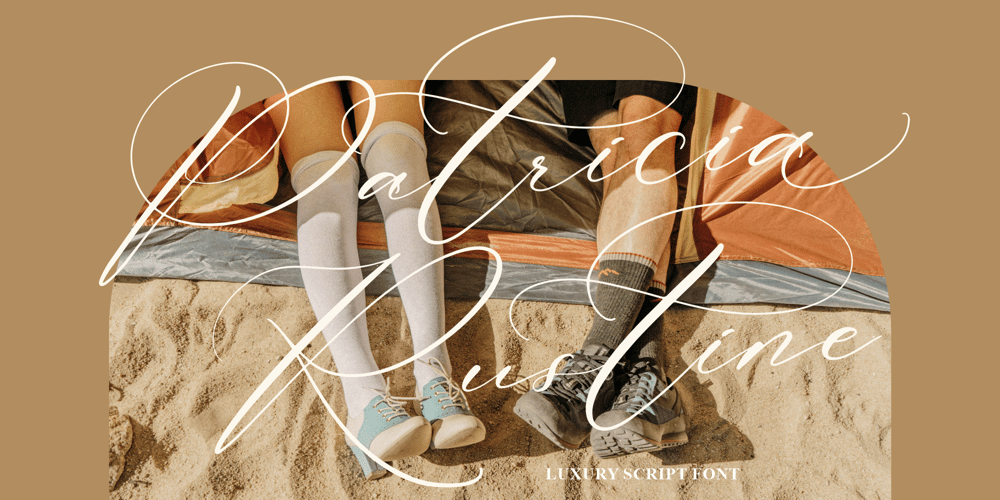
Patricia Rustine Font Family was designed by Heru Utama Putra and published by Letterena Studios. Patricia Rustine contains 2 styles and family package options. Patricia Rustine is a romantic and sweet calligraphy typeface with characters that dance along the baseline. It will add a luxury spark to any design project that you wish to create!